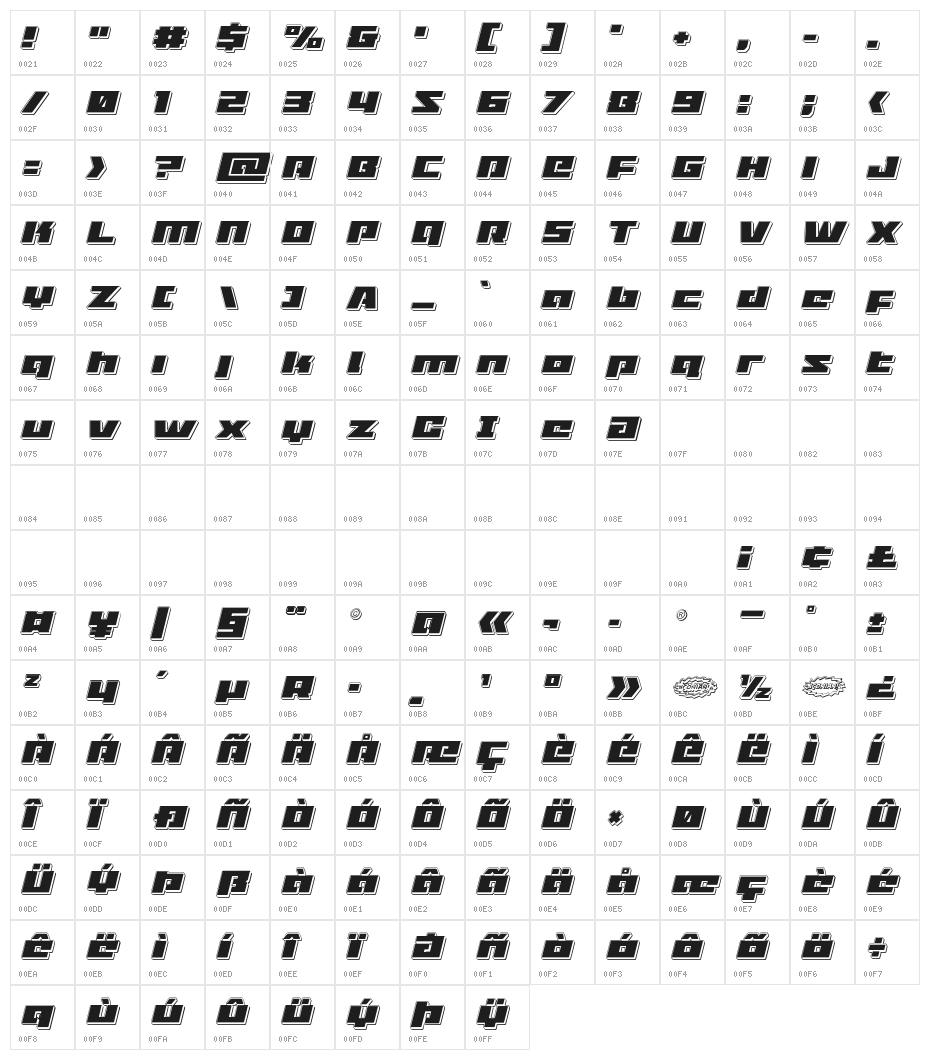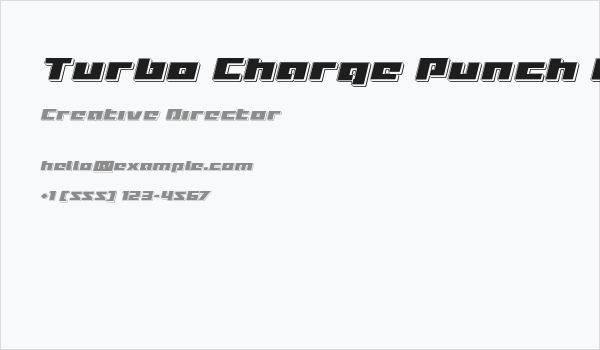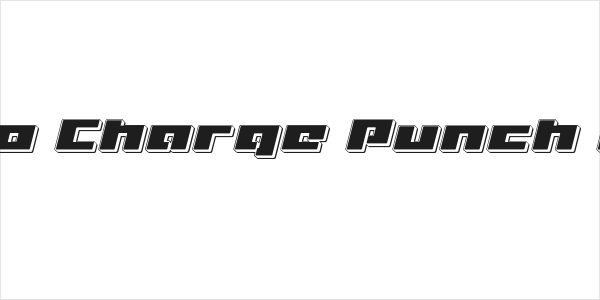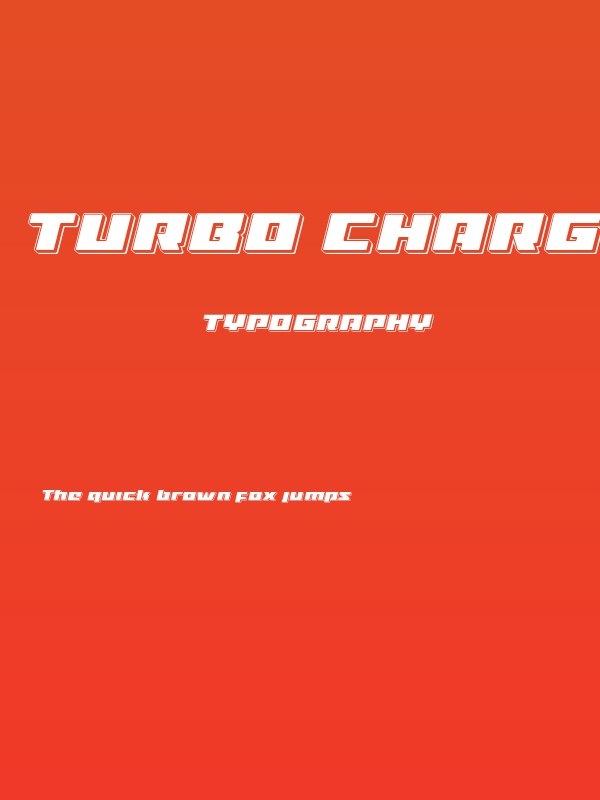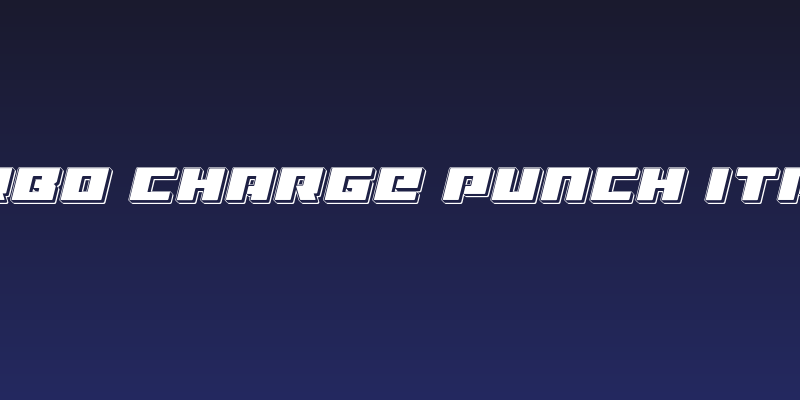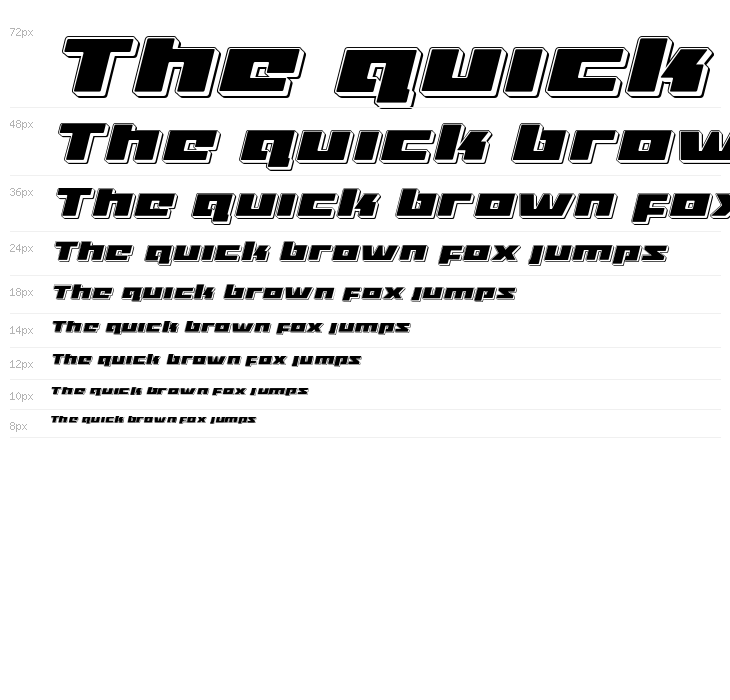
Turbo Charge Punch Italic Font
Turbo Charge Punch Italic Description
This font exhibits a bold, futuristic style with a strong geometric influence. The characters are outlined, giving them a three-dimensional effect that adds depth and dynamism. The italic slant enhances the sense of motion and speed, making it ideal for projects that require a modern and energetic feel. The uppercase and lowercase letters maintain consistency in style, with sharp angles and clean lines. The numerals and special characters are equally bold and distinctive, ensuring uniformity across all text elements.
TURBO-CHARGE-PUNCH-ITALIC UPPERCASE
TURBO-CHARGE-PUNCH-ITALIC LOWERCASE
TURBO-CHARGE-PUNCH-ITALIC OTHER CHARS